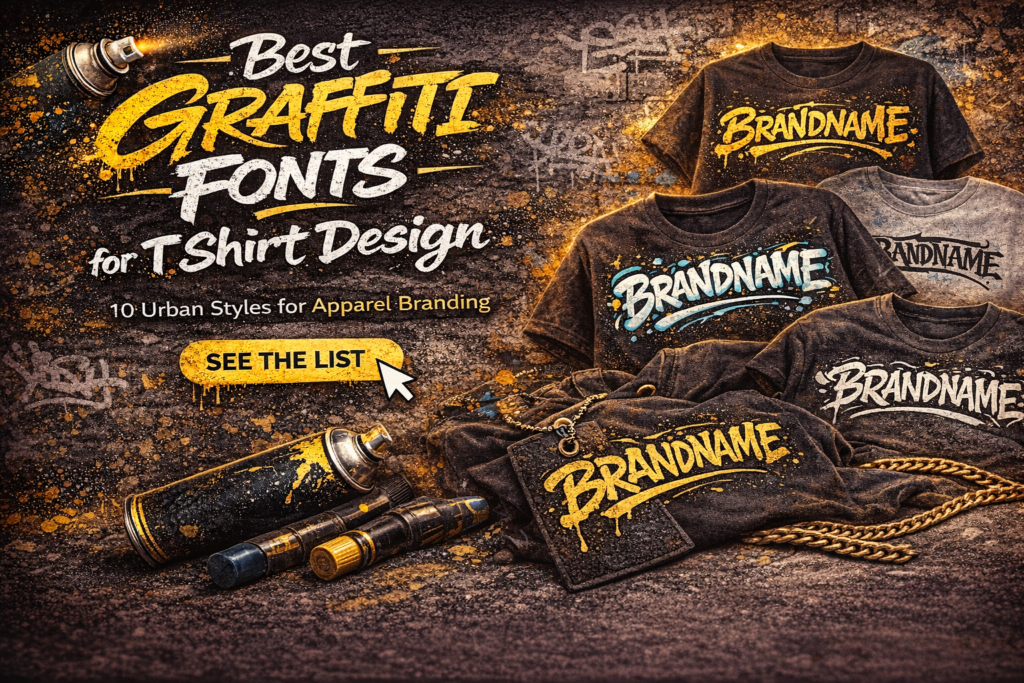
Best Graffiti Fonts for T Shirt Design: 10 Urban Styles for Apparel Branding
Choosing the best graffiti fonts for t shirt design can instantly transform a simple shirt into a bold fashion statement. In streetwear and custom apparel, typography is often the main visual element that attracts attention and defines brand identity.
Graffiti fonts are especially powerful because they create an urban, edgy, and expressive look that resonates strongly with younger audiences and streetwear culture.
In this guide, we’ll explore the best graffiti font styles for t shirt design and apparel branding.
Why Graffiti Fonts Work for T Shirt Design
Graffiti typography creates strong visual energy.
It helps improve:
• brand identity
• print appeal
• urban style
• memorability
These fonts are widely used in:
• streetwear shirts
• music merch
• custom apparel
• skate brands
10 Best Graffiti Fonts for T Shirt Design
1. Spray Paint Fonts
Classic graffiti style.
Perfect for bold front chest prints.
2. Brush Graffiti Fonts
These fonts add movement and personality.
Excellent for premium apparel branding.
3. Wildstyle Fonts
Highly expressive and detailed.
Best for exclusive streetwear drops.
4. Drip Fonts
Perfect for edgy urban aesthetics.
5. Marker Fonts
Great for authentic hand-drawn apparel design.
6. Bubble Graffiti Fonts
Playful and youthful.
Perfect for youth brands.
7. Distressed Graffiti Fonts
Great for rugged and vintage shirt designs.
8. Gothic Graffiti Fonts
Perfect for dark streetwear collections.
9. Minimal Urban Fonts
For cleaner and more premium streetwear.
10. Custom Graffiti Lettering
Best for unique brand identity.
Highly recommended for premium merch.
How to Choose the Best Graffiti Fonts for T Shirt Design
Choose based on:
Target Audience
Youth → bubble / drip
Streetwear → spray / wildstyle
Luxury urban → gothic / minimal
Print Compatibility
Works well for:
• DTG
• screen print
• vinyl transfer
Readability
Typography should still be clear on fabric.
Best Fonts for Apparel Print
Final Thoughts
Choosing the best graffiti fonts for t shirt design can significantly improve apparel appeal and brand recognition.
Typography is one of the most important visual elements in streetwear fashion.
Using premium graffiti fonts can help your products look more exclusive and desirable.